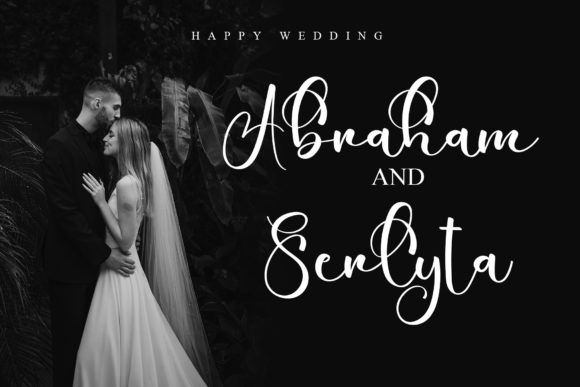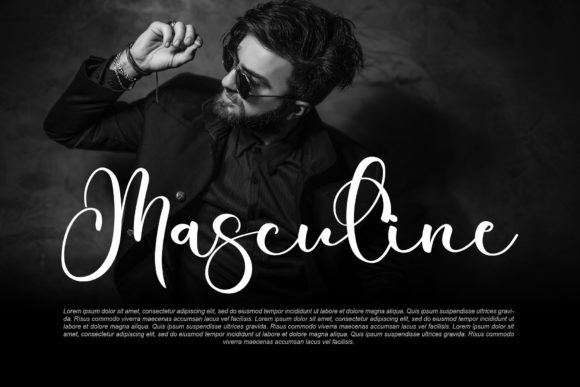
Bitter Signature Font
db-ku.com - Script & Handwritten -- Bitter Signature is a lovely and delicate script font that exudes elegance and class. This font was particularly crafted for those who need a beautiful and refreshing look to their designs.